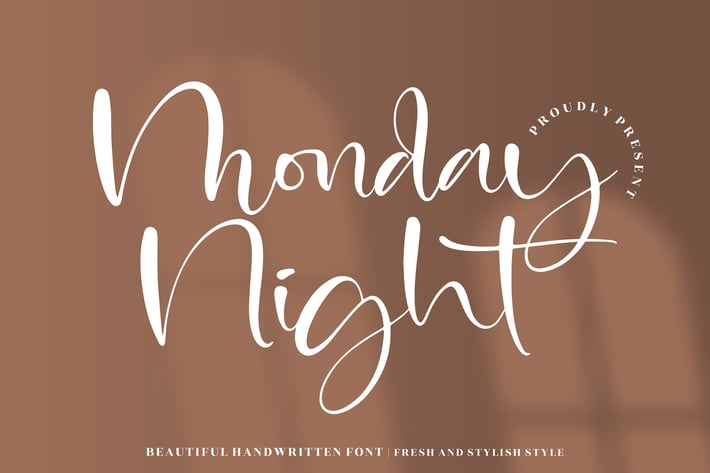
Monday Night Beautiful Handwritten Font
Monday Night is a beautiful handwritten font that captures a calm, cozy, and effortlessly stylish vibe. With its soft curves and natural handwriting flow, this font feels warm and personal—perfect for designs that want to feel relaxed, intimate, and aesthetically pleasing.
Smooth handwritten style with elegant flowing strokes
Natural and friendly letterforms
Easy to read for both headlines and short text
Clean balance between casual and refined
Lifestyle & personal branding
Social media posts and quotes
Wedding invitations & stationery
Journals, planners, and notes
Packaging and creative projects
A handwritten font inspired by quiet nights and warm moments — simple, beautiful, and effortlessly charming.*